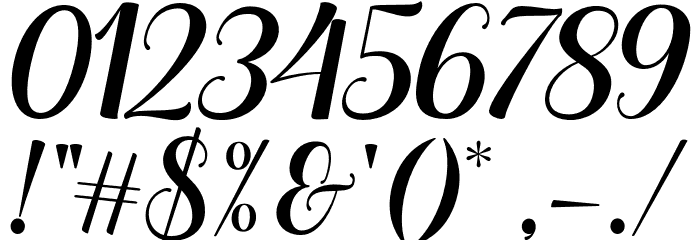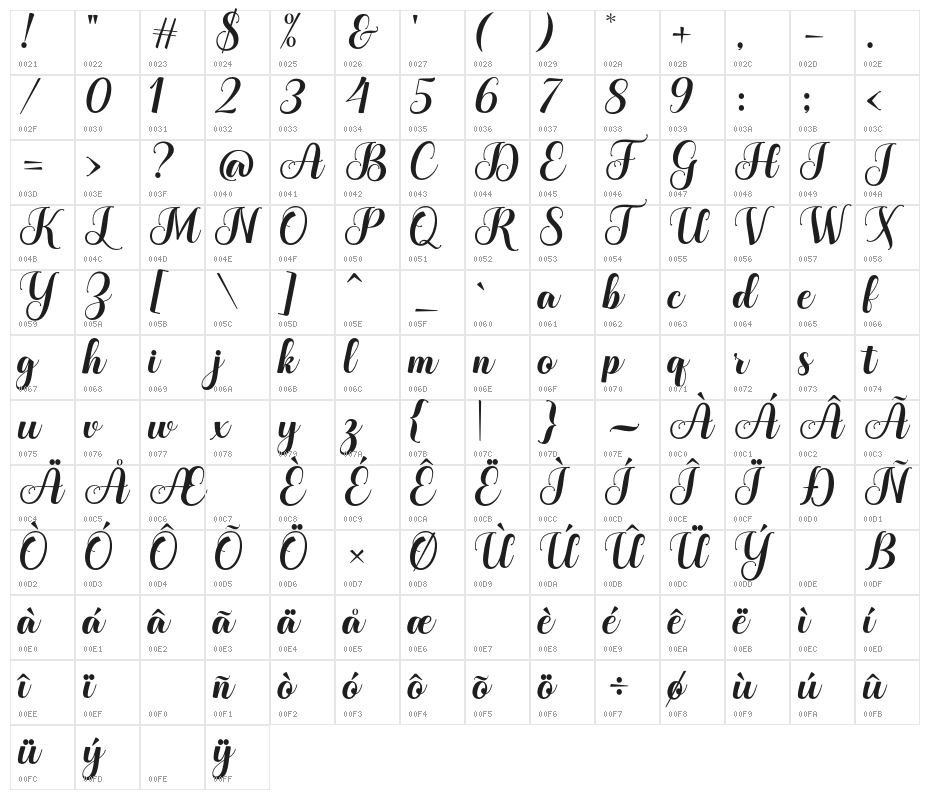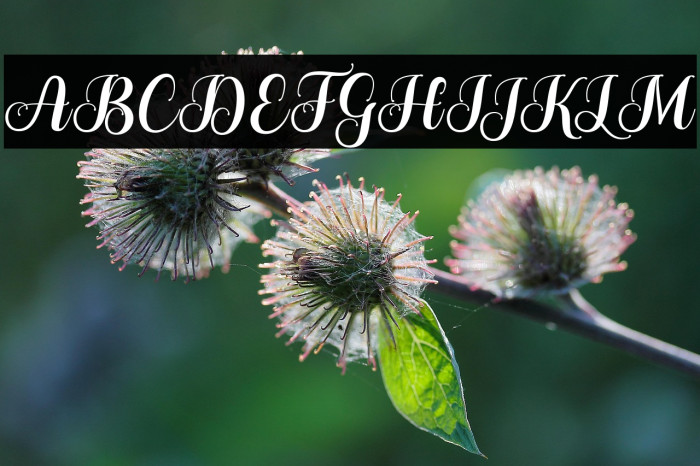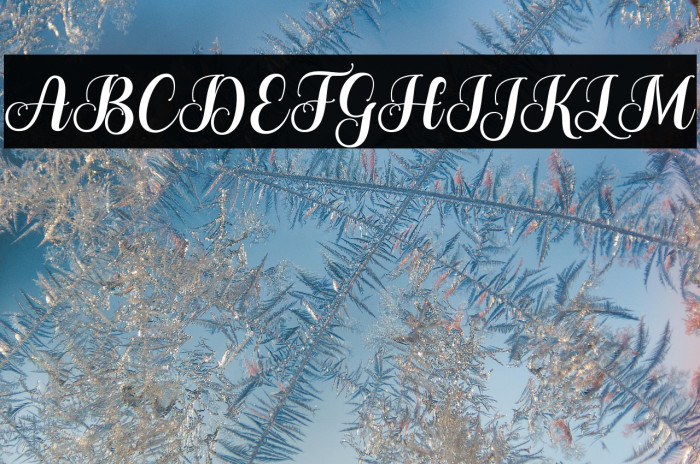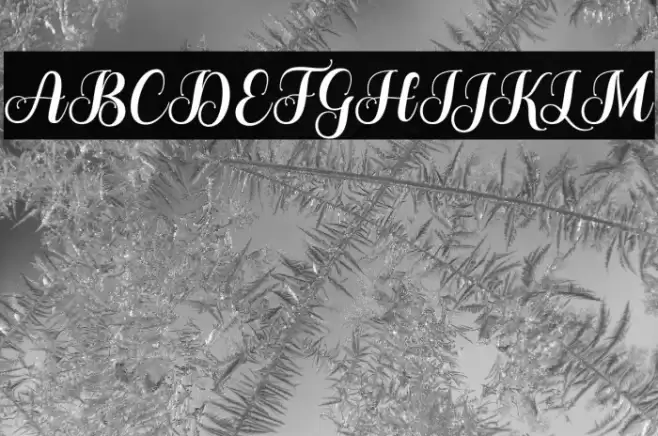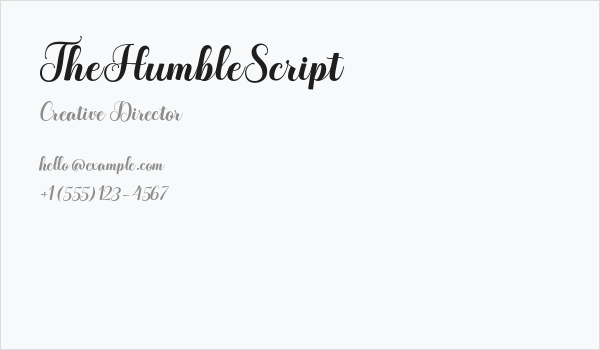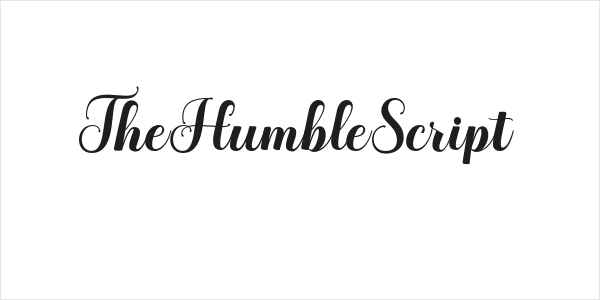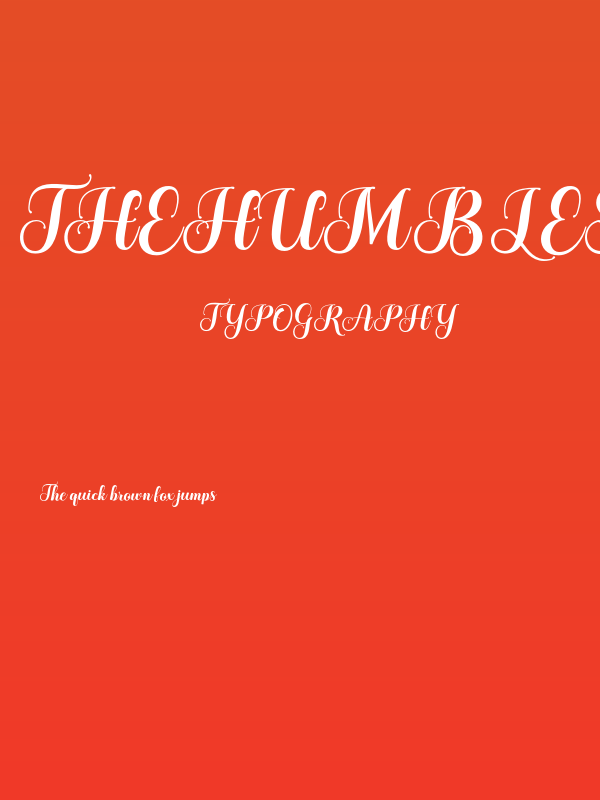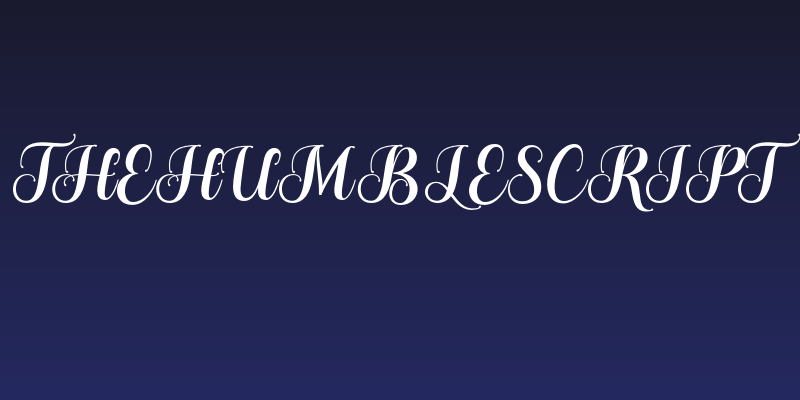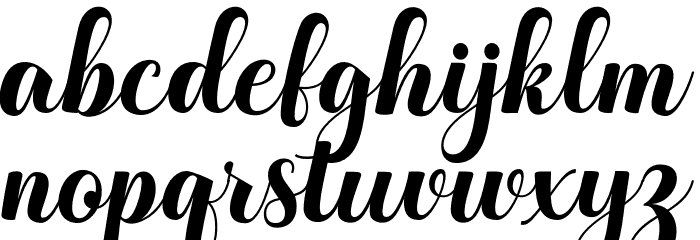
TheHumbleScript Font
TheHumbleScript Description
This elegant script font features a flowing, cursive style with high contrast between thick and thin strokes. The uppercase letters are ornate, with sweeping curves and flourishes that add a touch of sophistication. The lowercase letters maintain a consistent rhythm, enhancing readability while preserving the decorative nature of the script. Numbers and special characters are designed with the same attention to detail, ensuring a cohesive look across all text elements. This font is ideal for projects that require a touch of elegance and class, such as wedding invitations, formal event programs, or luxury branding.
| Use Case | Headlines, Invitations, Branding |
| Proposed Projects | Wedding invitations, luxury branding, formal event programs. |